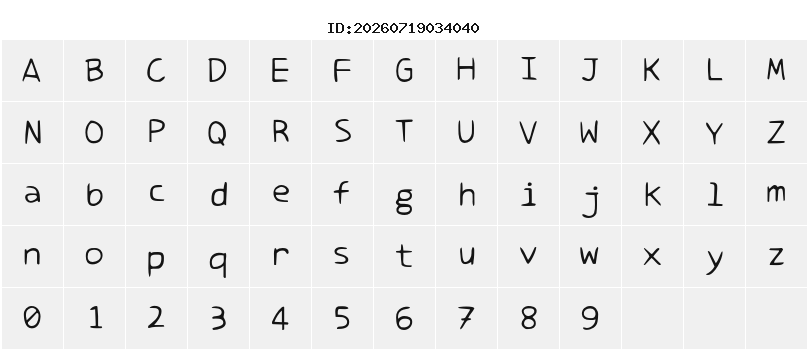
ConsoleFu Preview
• Font Name: ConsoleFu
• Full Font Name: ConsoleFu
• Designer: Chase
• Manufacturer: CSDGN
About ConsoleFu.otf
ConsoleFu.otf is a modern, elegant sans-serif font designed for ultimate readability and visual harmony. Perfect for branding, headlines, web design, and print materials.